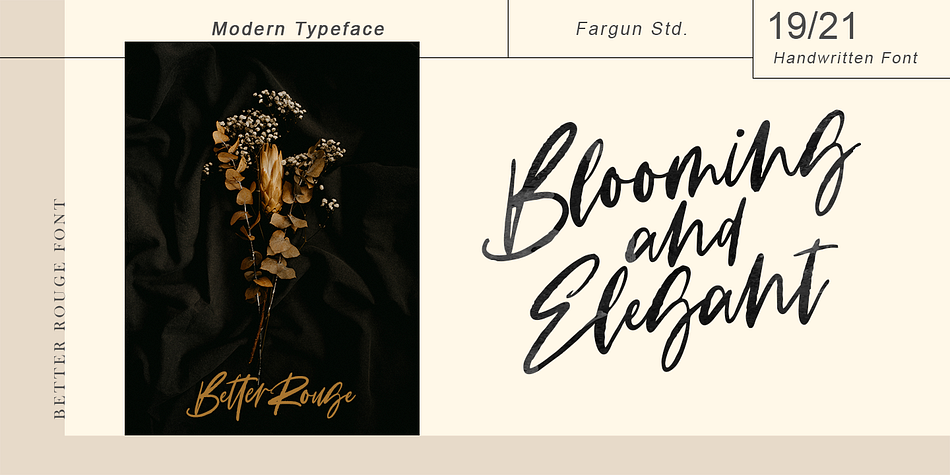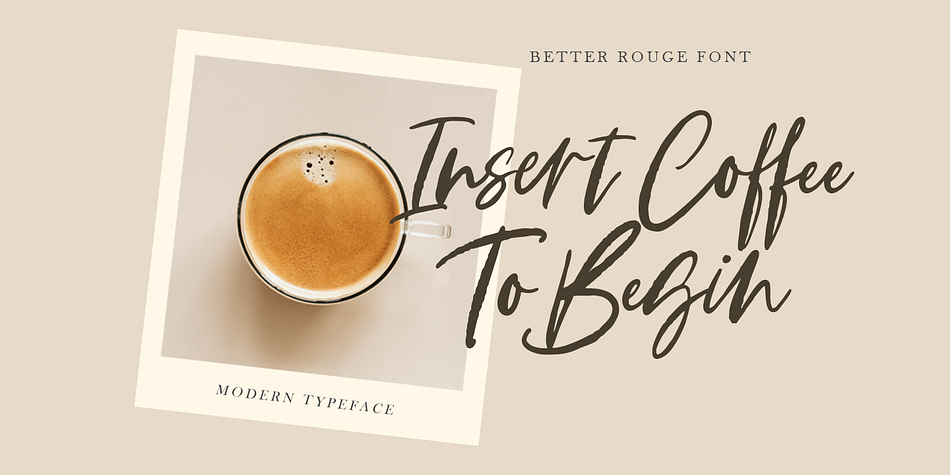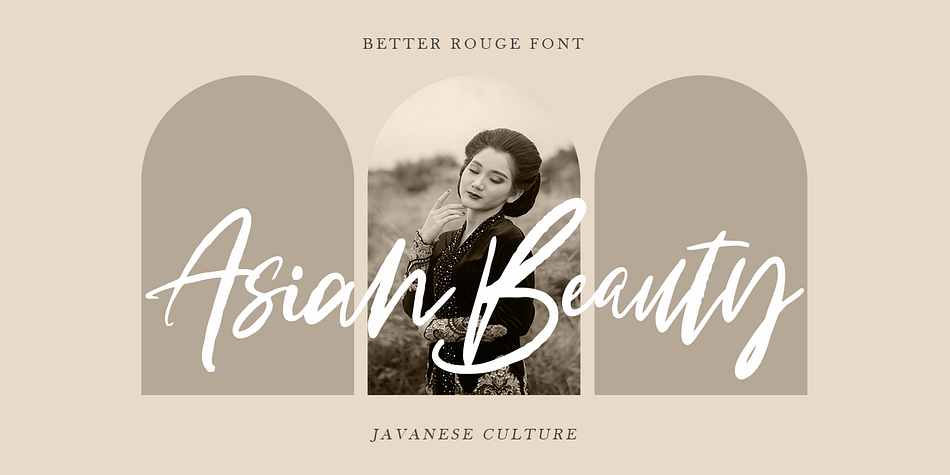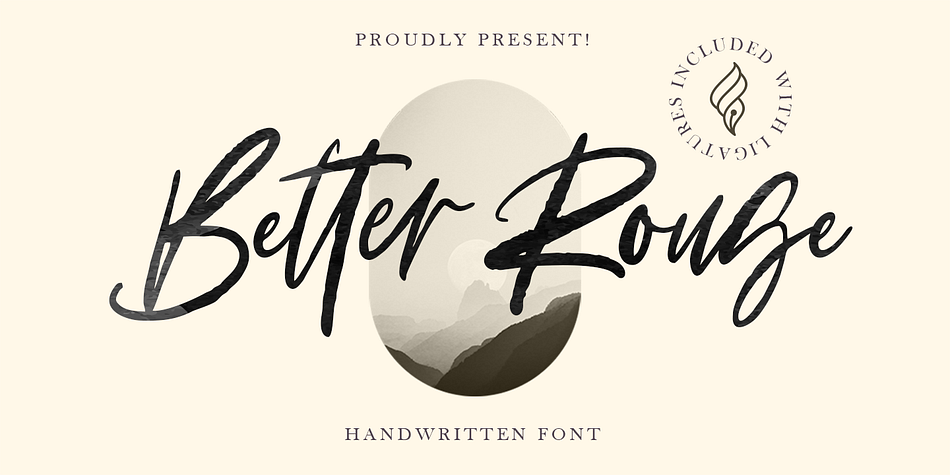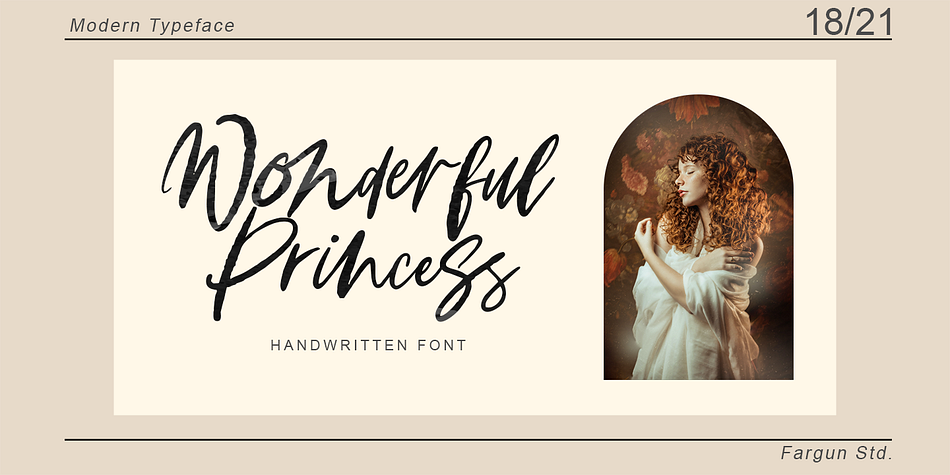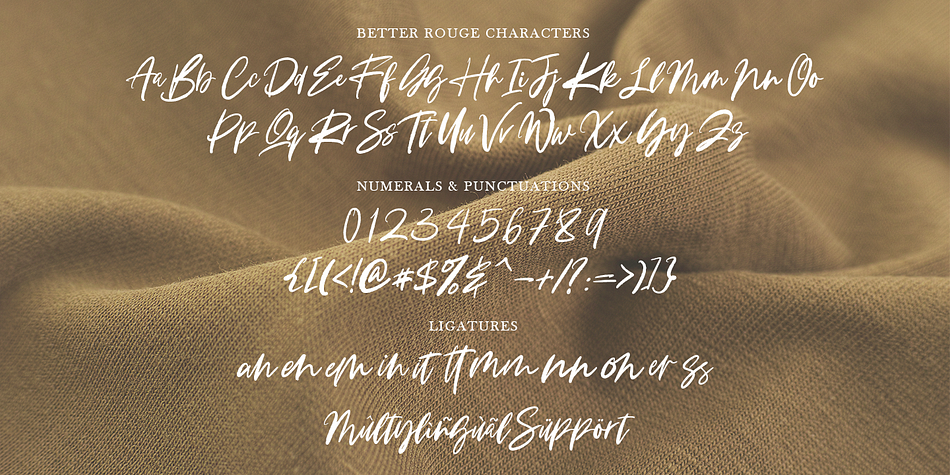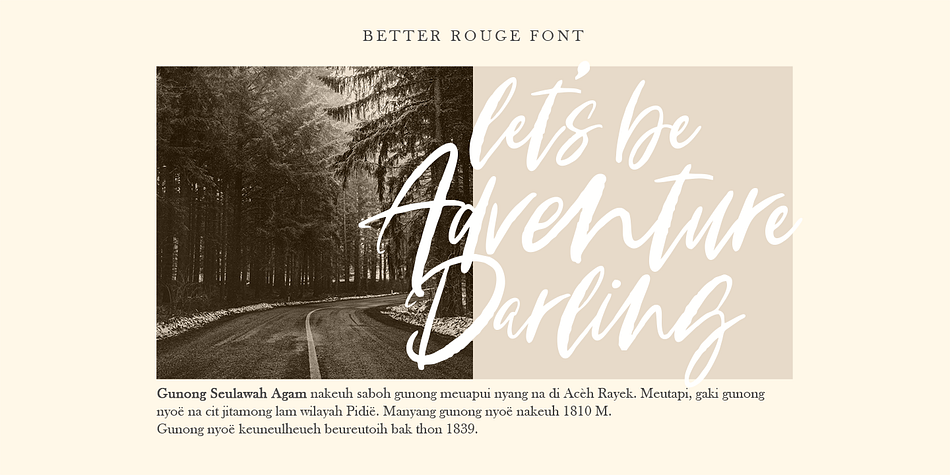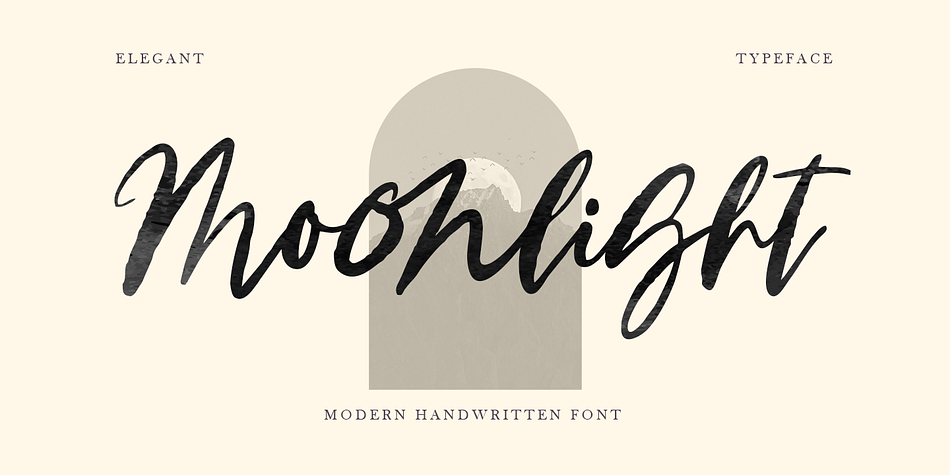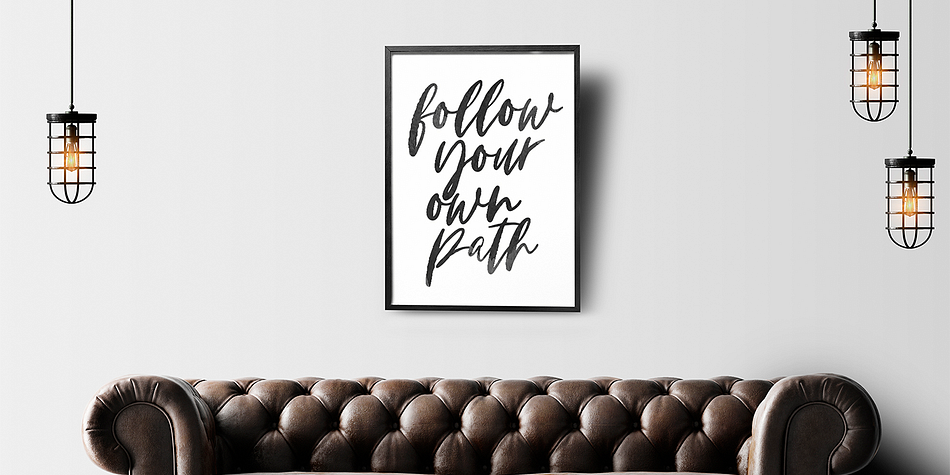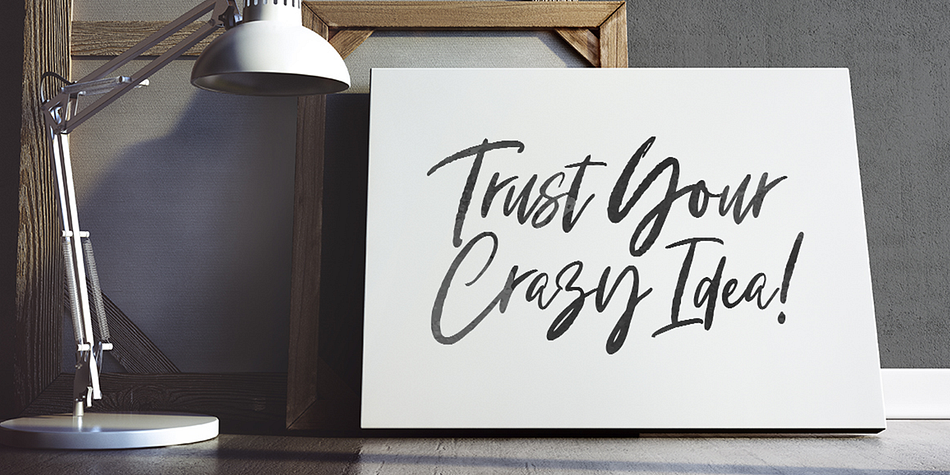
Better Rouge
Better Rouge is a brush script font family published by Fargun Studio.
Better Rouge is handwritten stylish copperplate calligraphy fonts, combines from copperplate to contemporary typeface with a dancing baseline, classic and elegant touch. Can be used for various purposes. such as headings, signature, logos, wedding invitation, t-shirt, letterhead, signage, lable, news, posters, badges etc.
Features
All Uppercase and Lowercase
Number & Symbol
Supported Languages
Ligatures